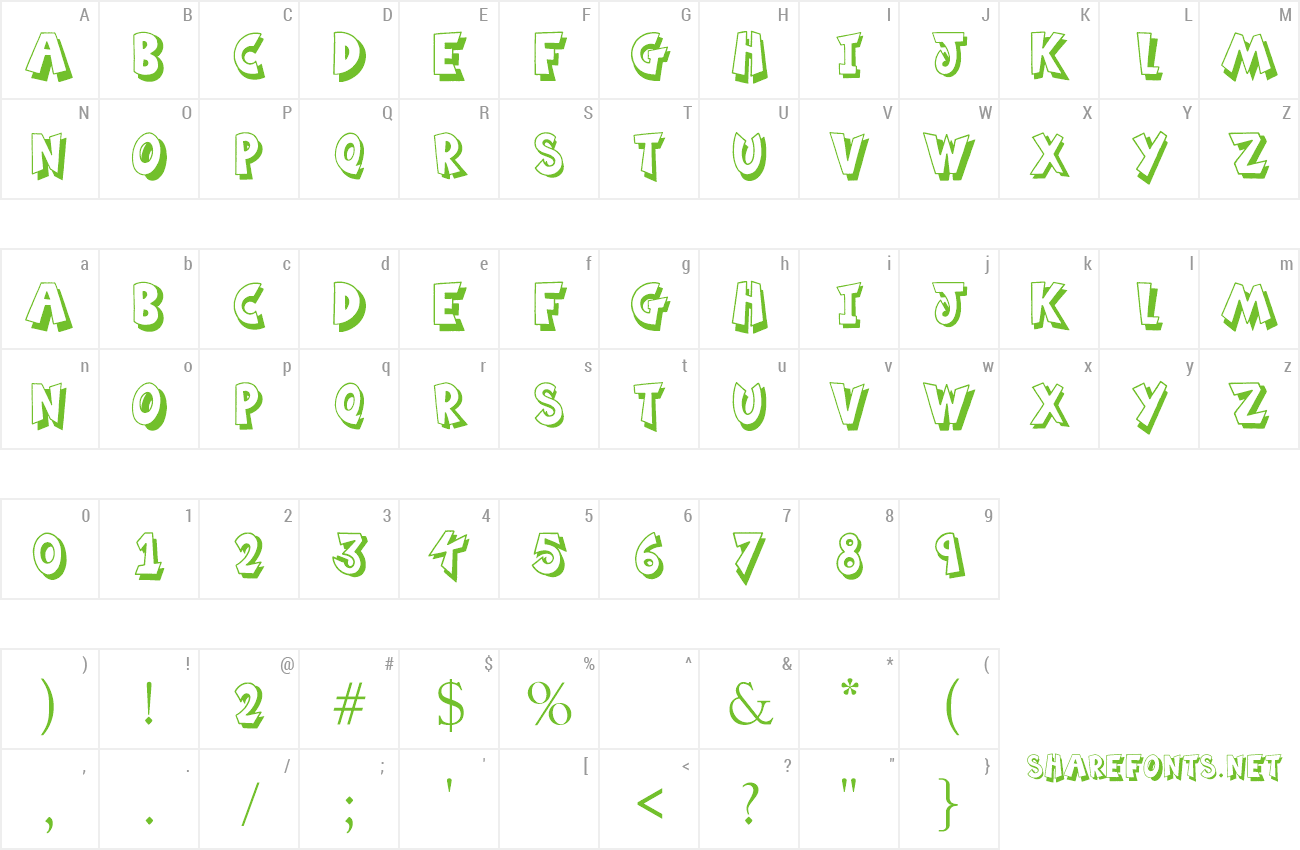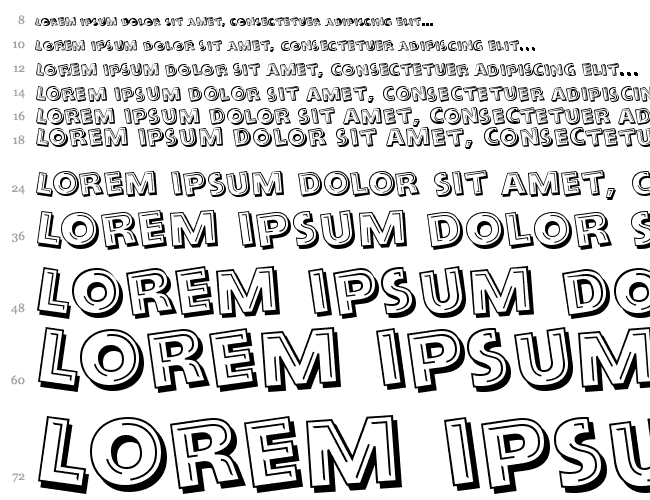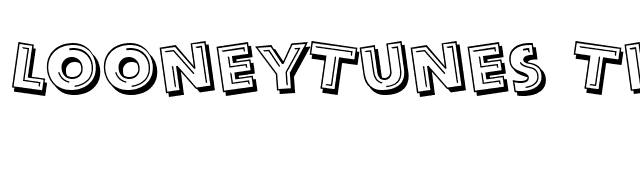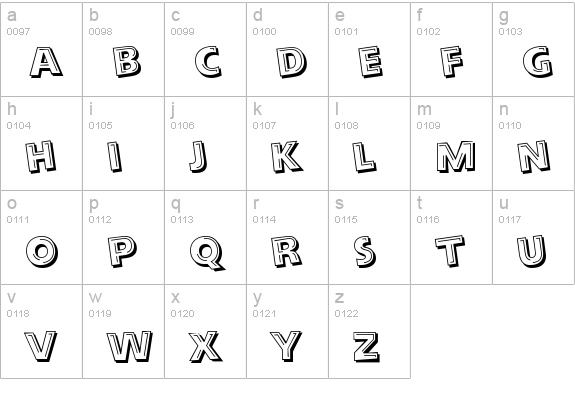
Looney Tunes Logo Font
Looney tunes font family has a very attractive style and you have already seen in looney tunes covers. Classics baskerville futura garamond alongside hot new fonts futura now resolve sanslarken. The font used for the looney tunes logo is probably alphabet soup tilt. Download alphabet soup font the alphabet soup font identified above is not available for free please follow the link above and purchase the font.